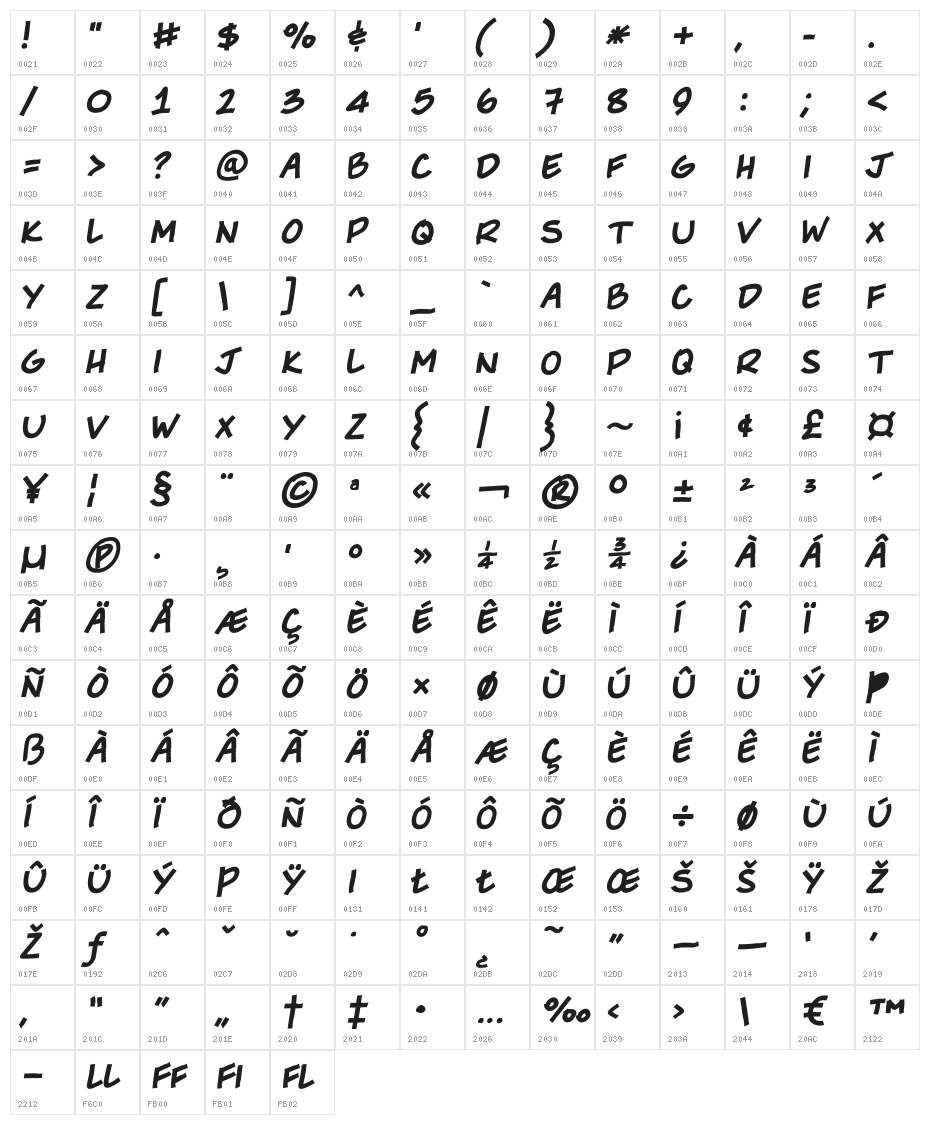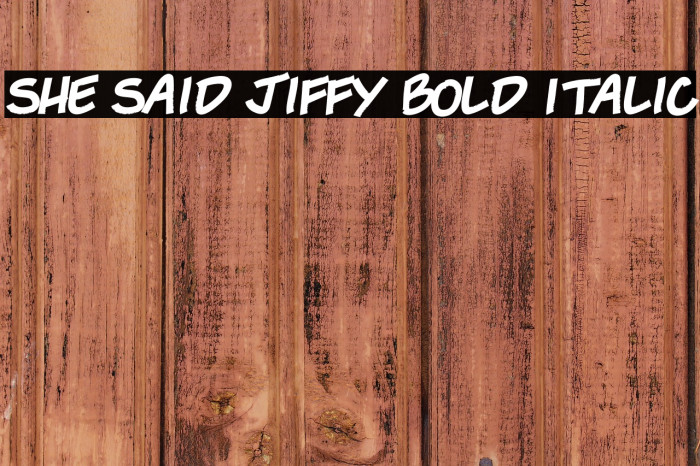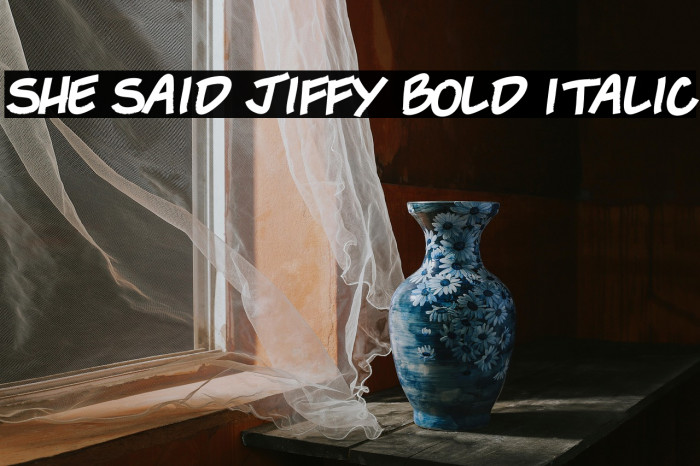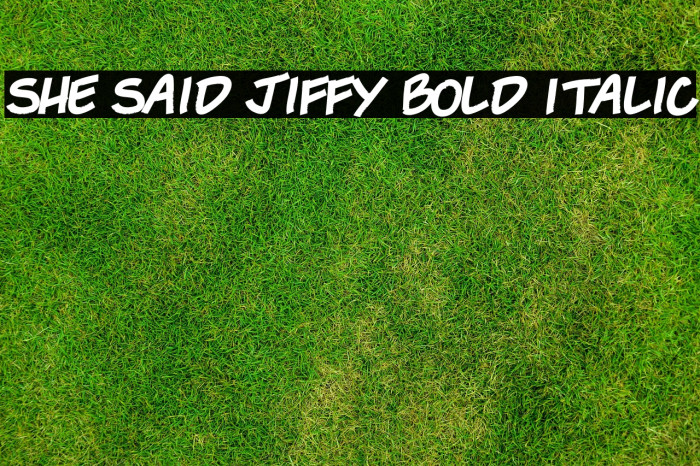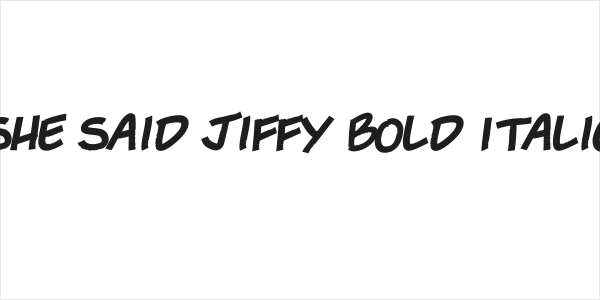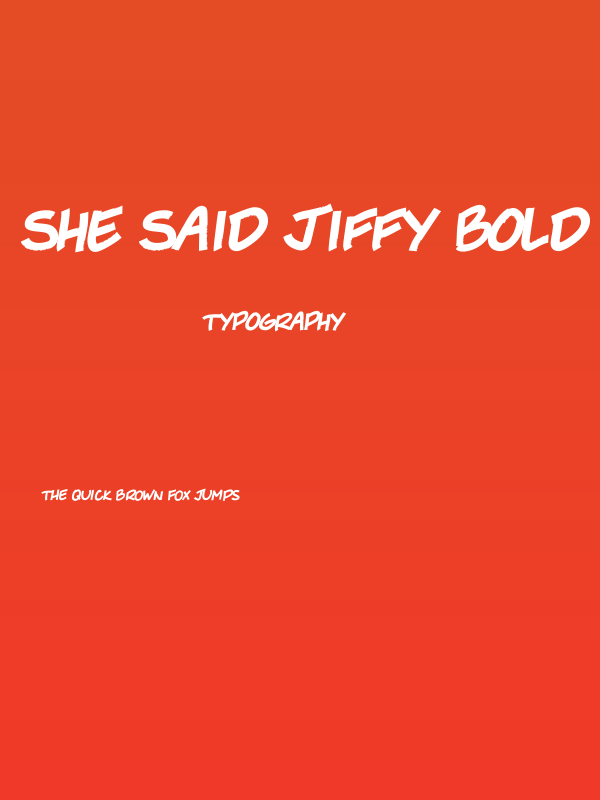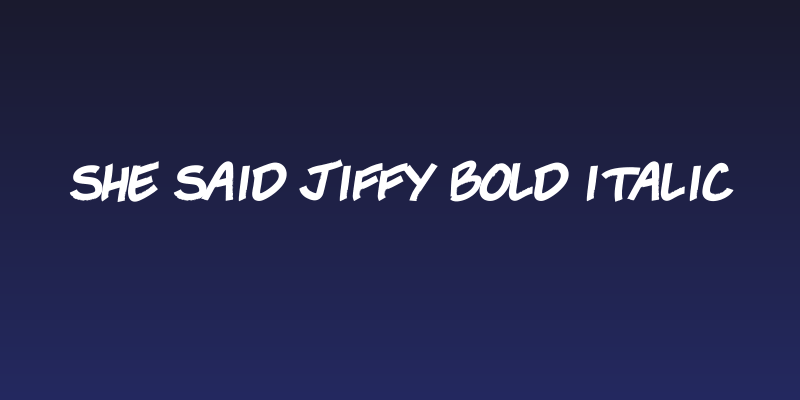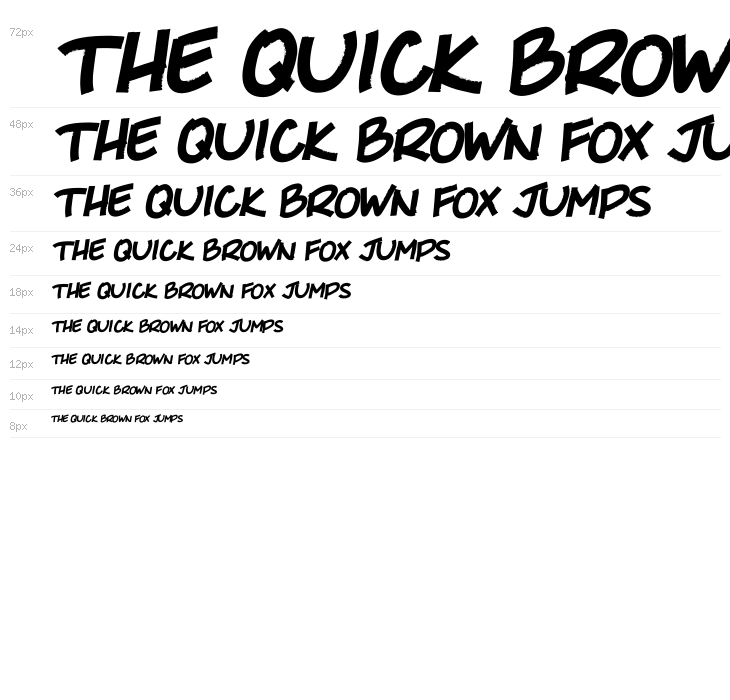
She Said Jiffy Bold Italic Font
She Said Jiffy Bold Italic Description
This font exhibits a bold and dynamic style with a handwritten appearance. The characters are slightly slanted, giving it an italicized look, which adds to its energetic and informal vibe. The strokes are thick and consistent, providing a strong visual impact. The uppercase and lowercase letters maintain a cohesive style, with rounded edges and a playful flair. The numbers and special characters are designed to match the overall aesthetic, ensuring uniformity across all elements. This font is ideal for projects that require a lively and engaging typeface.
| Proposed Projects | Ideal for branding, posters, social media graphics, and any project that requires a lively and engaging typeface. |